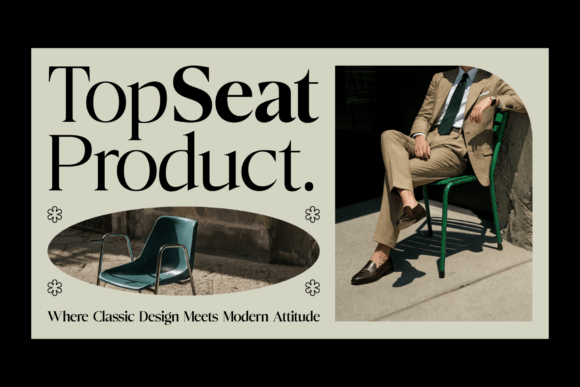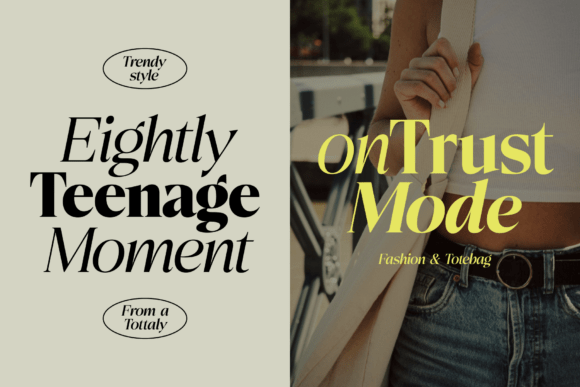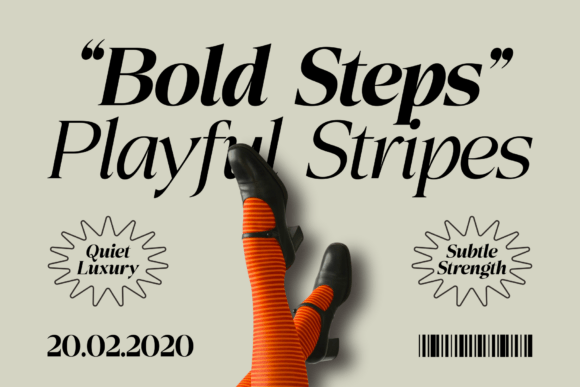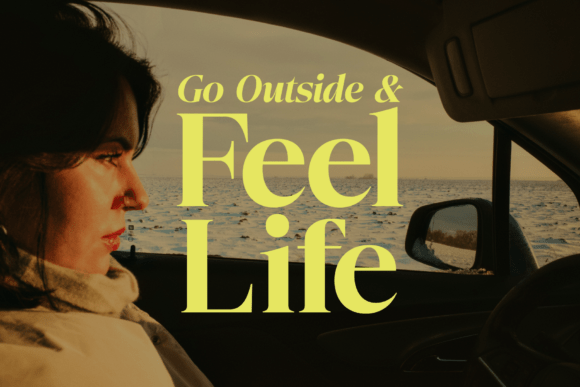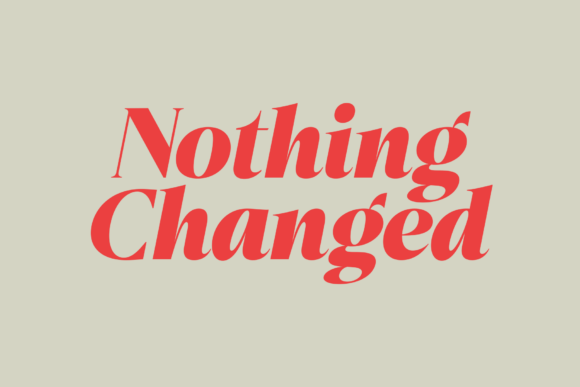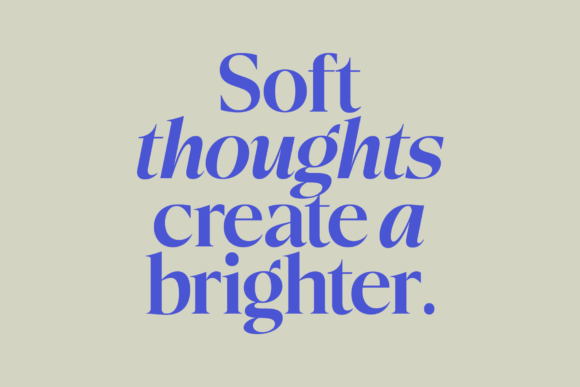
Introducing Eightly Teenage: The Elegant Serif Typeface for Modern Design
Eightly Teenage is a sophisticated serif typeface that seamlessly blends classic elegance with a youthful, contemporary attitude. This versatile font is designed to cater to the needs of designers and crafters looking for a refined and expressive typographic solution. With its high contrast between thick and thin strokes, refined curves, and subtly sharp terminals, Eightly Teenage exudes confidence and poise, making it an excellent choice for a wide range of design applications.
Timeless Proportions with a Modern Edge
One of the standout features of Eightly Teenage is its timeless proportions, which evoke a sense of classic sophistication. The letterforms are carefully crafted to create a sense of balance and harmony, making it perfect for designs that require a touch of elegance. However, what sets Eightly Teenage apart is its expressive details, which introduce a modern edge to the font. The subtle sharpness of the terminals and the refined curves add a touch of contemporary flair, preventing the font from feeling too traditional or stuffy.
A Flexible Typographic Hierarchy
Eightly Teenage is designed as an expanded family, offering a wide range of weights from Thin and Extra Light to Bold and Extra Bold. This flexibility allows designers to create a nuanced typographic hierarchy within a single visual system, making it easy to differentiate between headings, subheadings, and body text. The lighter weights, such as Thin and Extra Light, are perfect for fashion headlines, refined branding, and editorial layouts, where a sense of airiness and sophistication is desired. On the other hand, the heavier styles, like Bold and Extra Bold, deliver strong impact and are ideal for posters, titles, and statement typography.
Ideal Applications for Eightly Teenage
Eightly Teenage is a versatile typeface that can be used in a variety of design applications. Its elegant and refined nature makes it perfect for:
- Fashion and Lifestyle Brands: Eightly Teenage is well-suited for fashion and lifestyle brands that require a sophisticated and contemporary typographic solution. The font’s elegant and refined nature makes it perfect for branding, packaging, and advertising materials.
- Editorial Layouts: The font’s classic proportions and expressive details make it an excellent choice for editorial layouts, such as magazines, newspapers, and books.
- Luxury Branding: Eightly Teenage’s sophisticated and elegant nature makes it perfect for luxury branding, where a sense of refinement and poise is essential.
- Modern Visual Identities: The font’s unique blend of classic and contemporary elements makes it an excellent choice for modern visual identities, such as logos, icons, and branding materials.
Key Features of Eightly Teenage
Some of the key features that make Eightly Teenage an attractive typographic solution include:
- High Contrast: The font’s high contrast between thick and thin strokes creates a sense of elegance and sophistication.
- Refined Curves: The refined curves and subtly sharp terminals add a touch of modernity to the font.
- Expanded Family: The font’s expanded family offers a wide range of weights, making it easy to create a nuanced typographic hierarchy.
- Timeless Proportions: The font’s timeless proportions evoke a sense of classic sophistication, making it perfect for designs that require a touch of elegance.
Eightly Teenage is an elegant serif typeface that offers a unique blend of classic sophistication and modern attitude. Its versatility, flexibility, and range of weights make it an excellent choice for designers and crafters looking for a refined and expressive typographic solution. Whether you’re working on a fashion brand, editorial layout, luxury branding, or modern visual identity, Eightly Teenage is sure to deliver a touch of elegance and sophistication to your design.